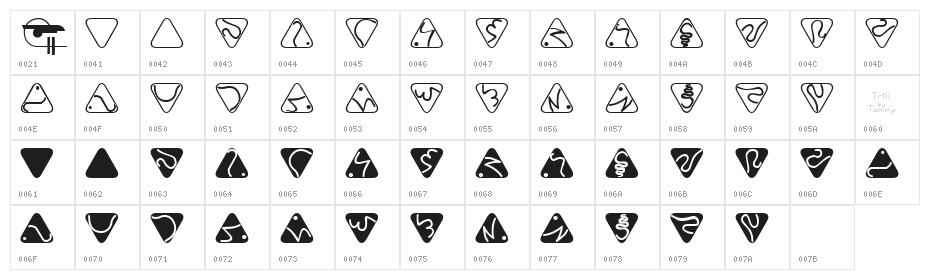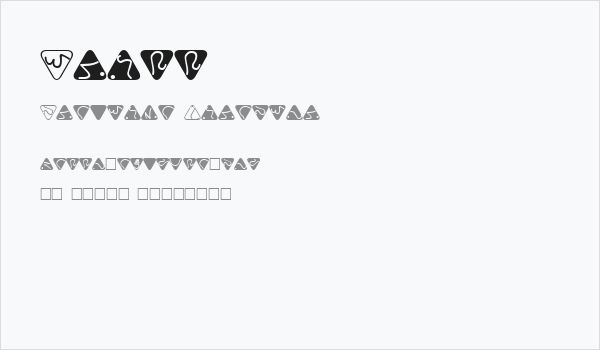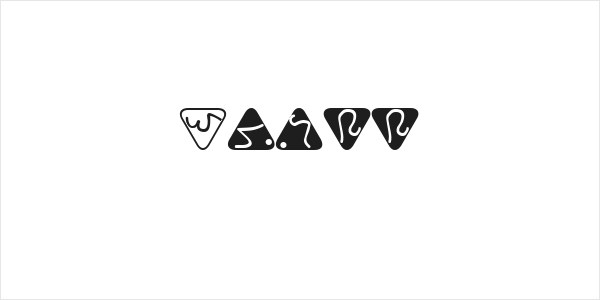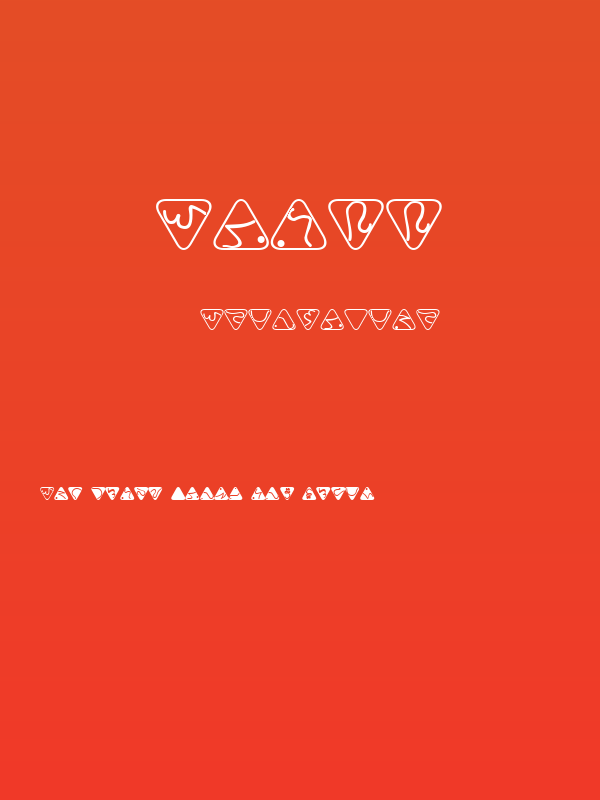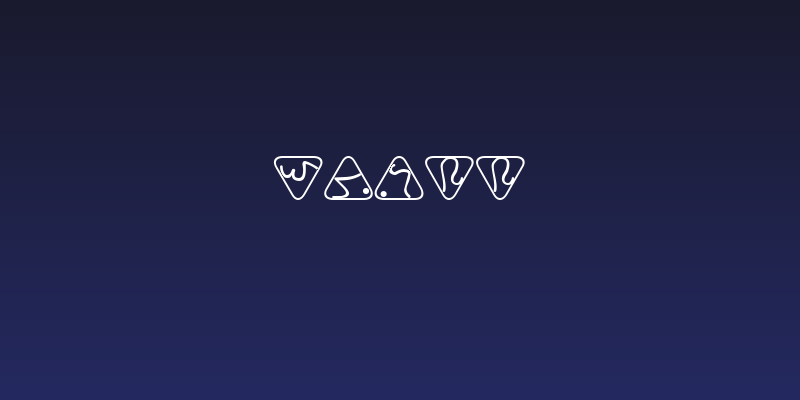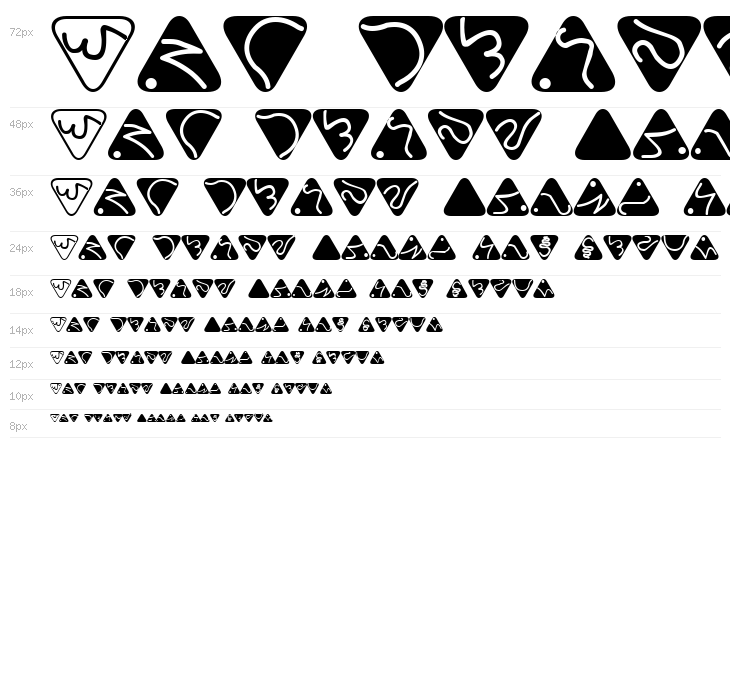
Trill Font
Trill Description
This unique font features characters enclosed within triangular shapes, creating a distinct and modern aesthetic. Each letter is stylized with a combination of solid and outlined forms, giving it a dynamic and artistic appearance. The use of geometric shapes adds a playful yet structured feel, making it stand out in any design. The characters are bold and eye-catching, with a consistent triangular theme that runs throughout the entire set. This font is perfect for projects that require a creative and unconventional look.